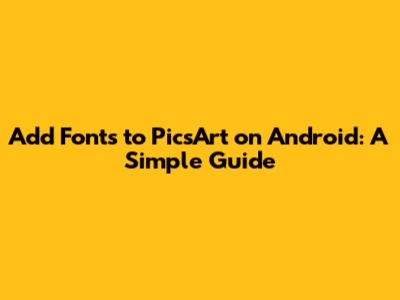
Add Fonts To PicsArt On Android: A Simple Guide
Hey guys! Want to spice up your PicsArt creations on your Android device with some cool new fonts? You've come to the right place! Adding fonts to PicsArt on Android is super easy, and it opens up a whole new world of creative possibilities. In this article, I'll walk you through the simple steps to get those fresh fonts into your PicsArt app so you can start making your designs pop. Let's dive in!
Why Add Custom Fonts to PicsArt?
Before we jump into the how-to, let's talk about why adding custom fonts is a game-changer for your PicsArt projects. PicsArt comes with a decent selection of fonts, but let’s be real – they can get a little stale after a while. Adding your own fonts allows you to:
• Express Your Unique Style: Custom fonts enable you to infuse your personality and brand identity into your designs. Whether you're going for a playful, elegant, or edgy look, the right font can make all the difference. You can truly stand out from the crowd and create visuals that are uniquely you by using fonts that resonate with your personal style.
• Enhance Your Branding: If you're using PicsArt for business or social media marketing, consistent branding is crucial. With custom fonts, you can use your brand's specific typography, ensuring that your visuals align perfectly with your overall brand identity. It's all about building a recognizable and cohesive brand presence that your audience will remember.
• Create Eye-Catching Designs: Sometimes, the built-in fonts just don't cut it. Adding custom fonts gives you access to a wider range of styles, allowing you to create more visually appealing and engaging designs that capture attention. You can experiment with different fonts to find the perfect match for your project, making your designs more dynamic and captivating.
• Stay Trendy: Font trends come and go, and adding custom fonts allows you to stay up-to-date with the latest design styles. Whether it's a retro vibe, a minimalist look, or a bold statement, you can always find a font that fits the current trends, keeping your designs fresh and relevant. Being able to adapt to new trends ensures your designs remain modern and appealing.
• Improve Readability: Different projects require different levels of readability. Adding custom fonts gives you the flexibility to choose fonts that are optimized for legibility, ensuring that your message is clear and easy to understand. Whether you're creating a poster, a social media graphic, or a presentation slide, having the right font for readability is essential for effective communication.
Finding Awesome Fonts
Okay, so you're convinced you need custom fonts, right? The next step is finding them! Here are some great resources for downloading fonts:
• Google Fonts: A vast library of free, open-source fonts that are super easy to use. Just download and you’re good to go!
• DaFont: A popular website with a huge selection of fonts, both free and paid. You're sure to find something that tickles your fancy here.
• Creative Market: If you're willing to spend a little money, Creative Market offers high-quality fonts with commercial licenses. Great for professional projects!
• FontSpace: Another excellent resource for free fonts. The site is well-organized, making it easy to find what you're looking for.
When you're browsing for fonts, keep these tips in mind:
• Consider Your Project: What kind of design are you working on? A playful font might be great for a birthday card, but not so much for a business presentation. Think about the overall tone and message of your design.
• Check the License: Make sure you understand the font's license before using it. Some fonts are free for personal use but require a commercial license for business projects. Always double-check to avoid any legal issues.
• Readability Matters: A fancy font might look cool, but if it's hard to read, it's not very useful. Choose fonts that are legible and easy on the eyes, especially for body text.
• Pairing Fonts: Experiment with different font combinations to create visual interest. A good rule of thumb is to pair a decorative font with a simple, clean font. This creates balance and prevents your design from looking too cluttered.
Step-by-Step Guide: Adding Fonts to PicsArt on Android
Alright, let's get down to the nitty-gritty. Here's how to add those fantastic fonts you've found to PicsArt on your Android device:
Step 1: Download the Font File
First things first, you need to download the font file to your Android device. Fonts usually come in .ttf (TrueType Font) or .otf (OpenType Font) formats. When you download a font from a website, it typically comes in a ZIP file. Use a file manager app (like Files by Google or ES File Explorer) to extract the font file from the ZIP archive.
Step 2: Locate the PicsArt Fonts Folder
Now, you need to find the PicsArt fonts folder on your device. This is where you'll place the font file so PicsArt can recognize it. Here's how to find it:
1. Open your file manager app.
2. Navigate to your device's internal storage.
3. Look for a folder named "PicsArt". If you can't find it, it might be in the "Android" folder, then "data", and then look for a folder with "picsart" in its name. The exact path may vary slightly depending on your device and Android version.
4. Inside the PicsArt folder, you should see a folder named "fonts". If there isn't one, don't worry – you can create it yourself. Just create a new folder and name it "fonts" (all lowercase).
Step 3: Copy the Font File to the Fonts Folder
Once you've located the PicsArt fonts folder, it's time to copy the font file into it. Here's how:
1. Go back to the folder where you extracted the font file.
2. Long-press on the .ttf or .otf file to select it.
3. Tap the "Copy" or "Move" option (depending on your file manager app).
4. Navigate back to the PicsArt fonts folder.
5. Tap the "Paste" button to move the font file into the folder.
Step 4: Open PicsArt and Use Your New Font
With the font file safely in the PicsArt fonts folder, it's time to fire up PicsArt and see if it worked! Here's how to use your new font:
1. Open the PicsArt app on your Android device.
2. Start a new project or open an existing one.
3. Tap the "Text" tool to add text to your design.
4. In the text editing options, look for the font selection menu. It's usually a dropdown menu or a list of fonts.
5. Scroll through the font list until you find your newly added font. It might be at the bottom of the list or in a separate section for custom fonts.
6. Select your font and start typing! You should now be able to use your custom font in your PicsArt design.
Troubleshooting
Sometimes, things don't go as smoothly as we'd like. Here are a few common issues you might encounter and how to fix them:
• Font Doesn't Appear in PicsArt:
• Make sure you've placed the font file in the correct folder. Double-check the path and ensure the folder is named "fonts" (all lowercase).
• Restart the PicsArt app. Sometimes, the app needs to be restarted to recognize new fonts.
• Try copying the font file again. It's possible the file didn't copy correctly the first time.
• Font Looks Weird or Distorted:
• The font file might be corrupted. Try downloading the font from a different source or redownloading it from the original source.
• The font might not be compatible with PicsArt. Some fonts are designed for specific platforms or applications. Try a different font.
• PicsArt Crashes When Selecting the Font:
• The font file might be too large or complex. Try using a different font with a simpler design.
• Your device might be running low on memory. Close other apps and try again. If that doesn't work, restart your device.
Tips for Using Fonts Effectively in PicsArt
Now that you know how to add fonts, let's talk about using them effectively. Here are some tips to make your designs look professional and polished:
• Limit Your Font Choices: Using too many different fonts can make your design look cluttered and confusing. Stick to two or three fonts at most.
• Create Hierarchy: Use different font sizes and styles to create a visual hierarchy. Make important text larger and bolder to draw attention to it.
• Consider Contrast: Choose fonts that contrast well with each other. For example, pair a bold, sans-serif font with a delicate, serif font.
• Use Whitespace: Give your text some breathing room by adding whitespace around it. This makes it easier to read and prevents your design from looking cramped.
• Test on Different Devices: Make sure your text looks good on different devices and screen sizes. Some fonts might appear differently on a phone versus a tablet.
Conclusion
So there you have it! Adding fonts to PicsArt on Android is a breeze once you know the steps. With a little creativity and the right fonts, you can take your PicsArt designs to the next level. Go forth and create something amazing! Happy designing, and feel free to share your creations!